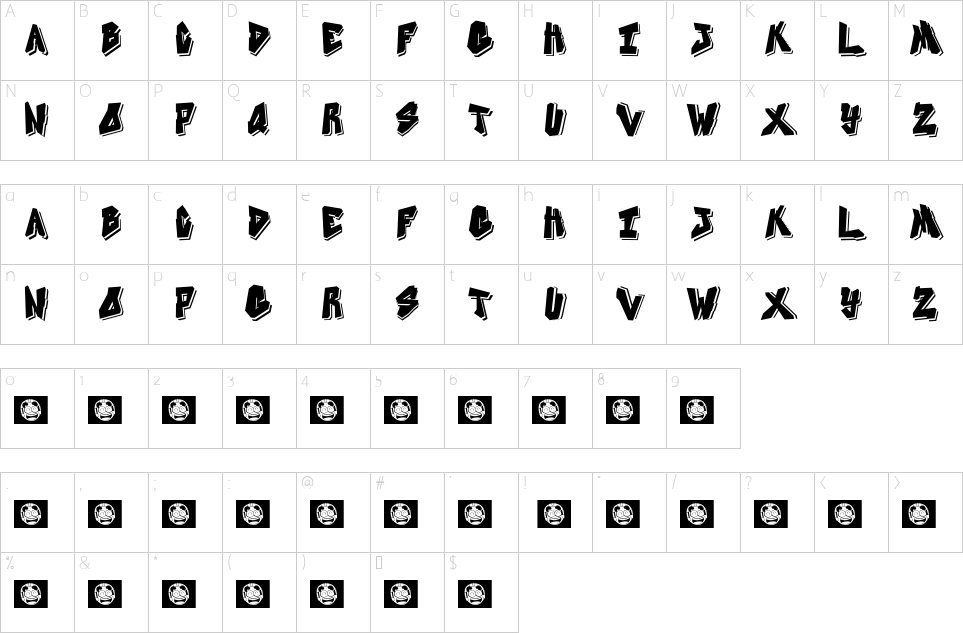
Lettering One Piece Font
Lettering One Piece Font - Looking for one piece fonts? Every font is free to download! Web the logo of one piece is very similar to a font named one piece designed by phantom king graphics. Choose from a wide variety of fonts and. Click to find the best 3 free fonts in the one piece style. The one piece font has been downloaded 24,061 times. The font is available in. Web in script > graffiti. Web create stunning one piece themed designs with our font style text effect generator.
Click to find the best 3 free fonts in the one piece style. Web in script > graffiti. Web create stunning one piece themed designs with our font style text effect generator. The font is available in. Every font is free to download! The one piece font has been downloaded 24,061 times. Looking for one piece fonts? Web the logo of one piece is very similar to a font named one piece designed by phantom king graphics. Choose from a wide variety of fonts and.
The font is available in. The one piece font has been downloaded 24,061 times. Choose from a wide variety of fonts and. Web create stunning one piece themed designs with our font style text effect generator. Looking for one piece fonts? Web in script > graffiti. Web the logo of one piece is very similar to a font named one piece designed by phantom king graphics. Every font is free to download! Click to find the best 3 free fonts in the one piece style.
Web create stunning one piece themed designs with our font style text effect generator. The font is available in. Every font is free to download! Choose from a wide variety of fonts and. Looking for one piece fonts?
Every font is free to download! Web the logo of one piece is very similar to a font named one piece designed by phantom king graphics. Web in script > graffiti. Choose from a wide variety of fonts and. Looking for one piece fonts?
Web create stunning one piece themed designs with our font style text effect generator. Every font is free to download! Looking for one piece fonts? Click to find the best 3 free fonts in the one piece style. Choose from a wide variety of fonts and.
Choose from a wide variety of fonts and. Web the logo of one piece is very similar to a font named one piece designed by phantom king graphics. The font is available in. The one piece font has been downloaded 24,061 times. Click to find the best 3 free fonts in the one piece style.
Every font is free to download! Looking for one piece fonts? The font is available in. Web in script > graffiti. Click to find the best 3 free fonts in the one piece style.
Click to find the best 3 free fonts in the one piece style. The one piece font has been downloaded 24,061 times. Web in script > graffiti. Choose from a wide variety of fonts and. Looking for one piece fonts?
Web in script > graffiti. Web the logo of one piece is very similar to a font named one piece designed by phantom king graphics. The font is available in. The one piece font has been downloaded 24,061 times. Looking for one piece fonts?
ONE PIECE Font Designed by Phantom King Graphics
Click to find the best 3 free fonts in the one piece style. Choose from a wide variety of fonts and. Web the logo of one piece is very similar to a font named one piece designed by phantom king graphics. Looking for one piece fonts? The one piece font has been downloaded 24,061 times.
One Piece Font
Web create stunning one piece themed designs with our font style text effect generator. Every font is free to download! Web the logo of one piece is very similar to a font named one piece designed by phantom king graphics. Choose from a wide variety of fonts and. Click to find the best 3 free fonts in the one piece.
One Piece Font Free Download
The one piece font has been downloaded 24,061 times. Web the logo of one piece is very similar to a font named one piece designed by phantom king graphics. The font is available in. Web create stunning one piece themed designs with our font style text effect generator. Web in script > graffiti.
Web the logo of one piece is very similar to a font named one piece designed by phantom king graphics. Web create stunning one piece themed designs with our font style text effect generator. Looking for one piece fonts? Every font is free to download!
The font is available in. Web in script > graffiti. Choose from a wide variety of fonts and.